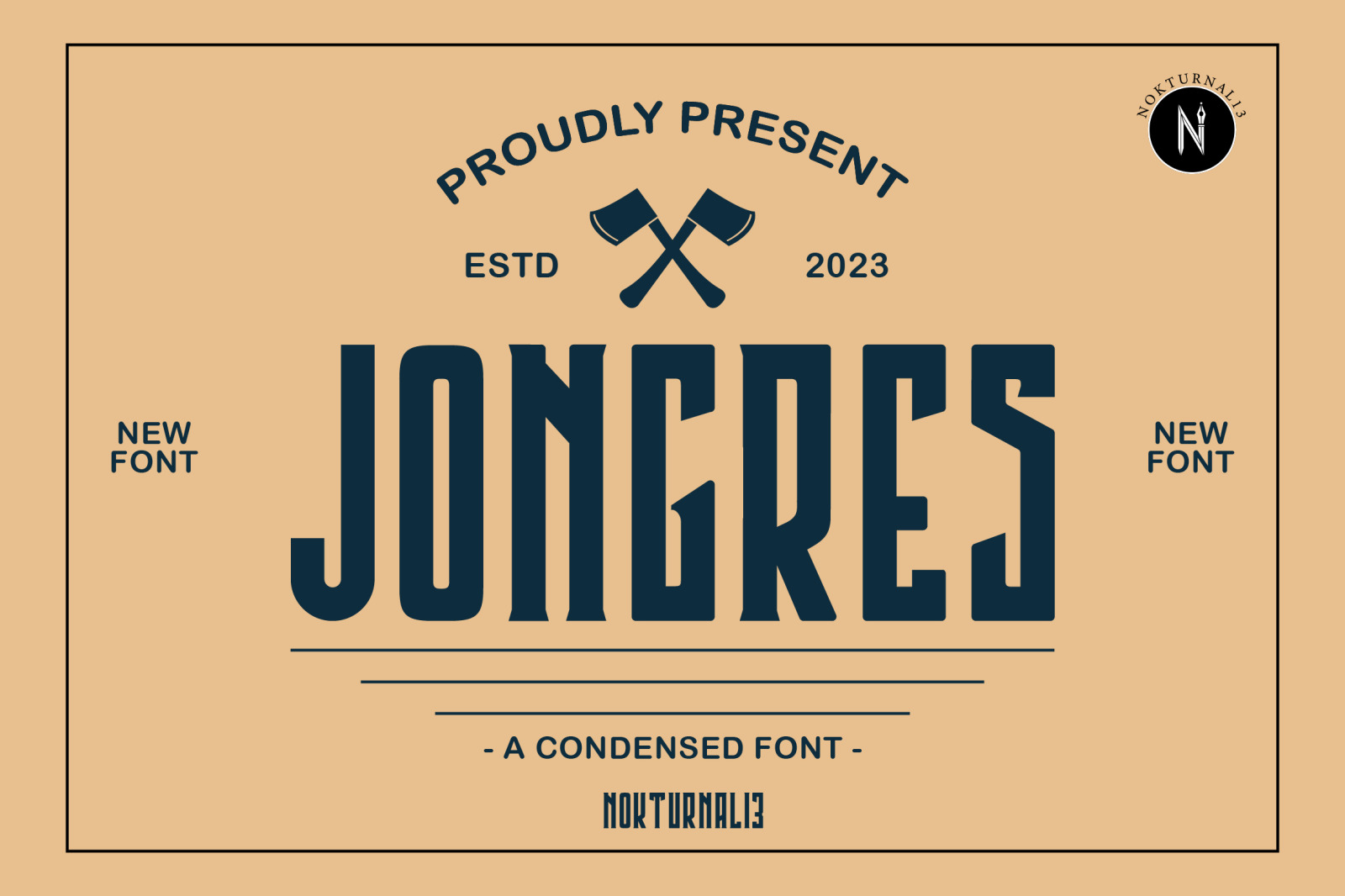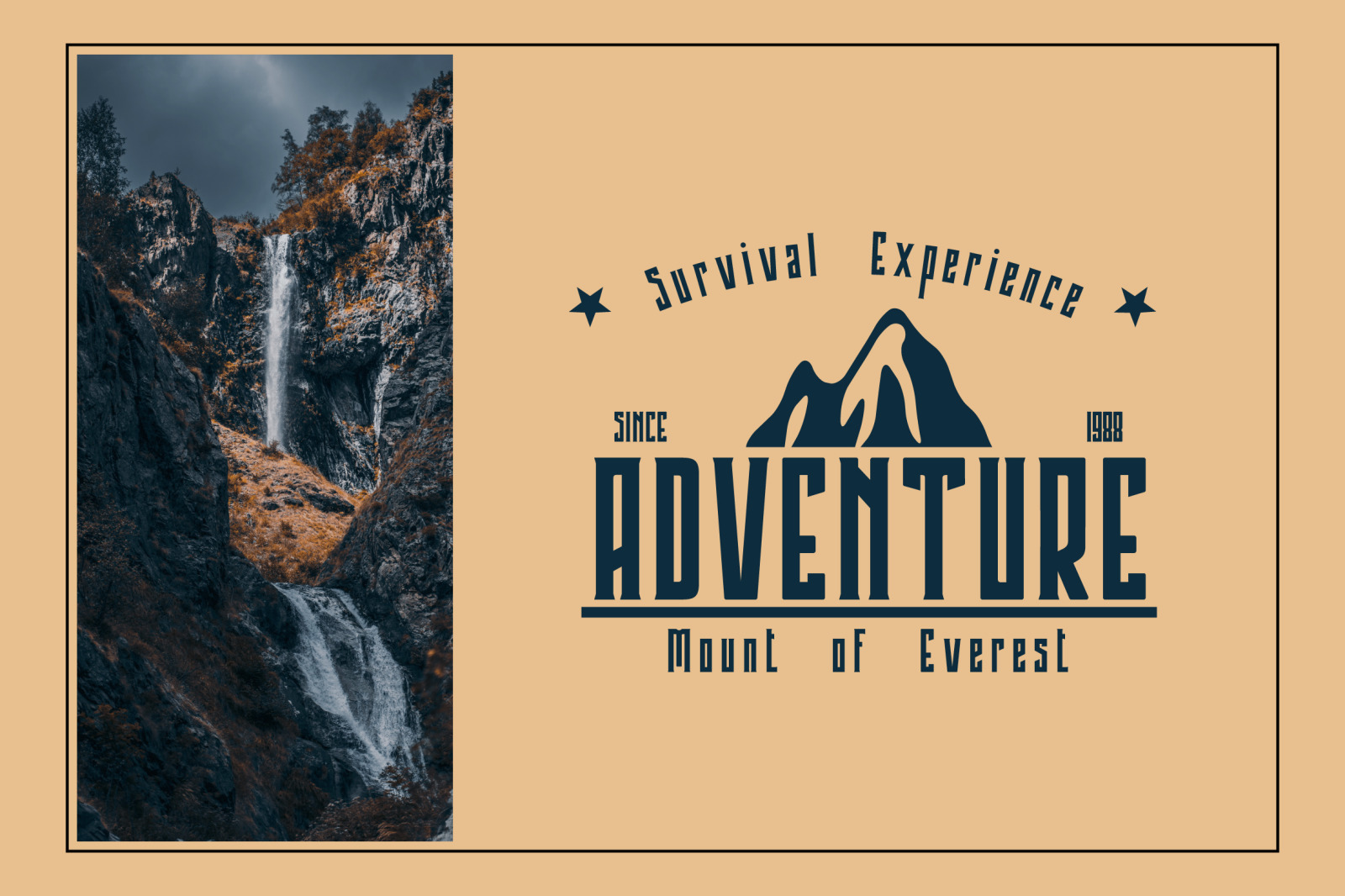
Jongres Font
Jongres is a condensed font with a bold and unique personality. Its sleek letterforms and sharp geometric shapes add a touch of sophistication to any design project. With stylistic alternates and ligature options, Jongres offers endless possibilities for customization and personalization. Its compact style allows for efficient use of space, making it ideal for various mediums and platforms. Choose Jongres for a distinct and captivating design.